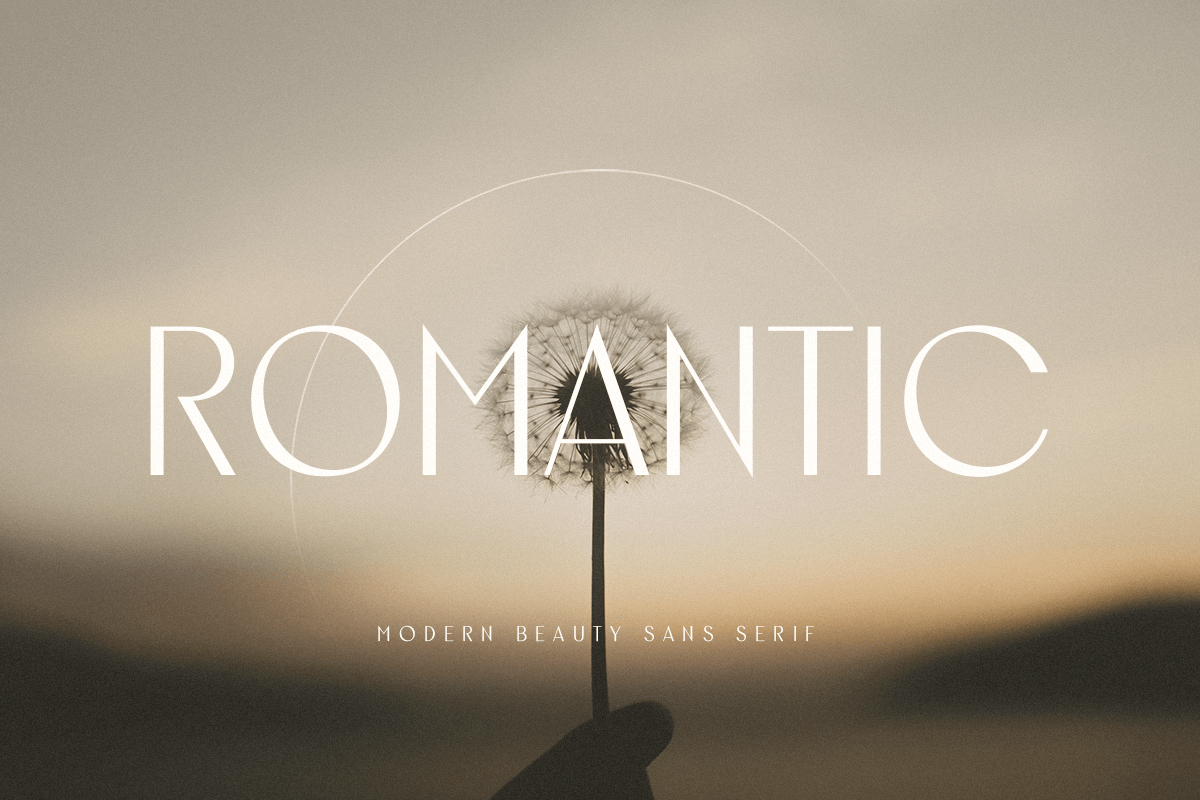
Romantic
-Modern Beauty Sans Serif
Romantic
Romantic is a Modern Beauty Sans Serif
A Sans Serif font that we created special for branding needs with classy shape to add value of your brand. It's so nice to leverage designer or product owner that need solutions to make their design look more classy and fashionable. And specially for Romantic font, We prepared any characters with Elegant shape to help you create classy style of your design.